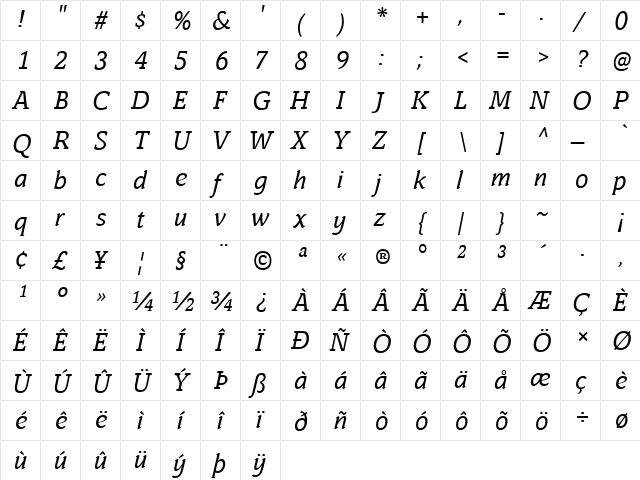
Corzinair Italic
Design Context for Corzinair Typeface
Corzinair is a composed and adaptable typeface that performs quietly and consistently across a wide range of design contexts. The slanted form adds forward momentum and visual energy.
Pro Tip: Try Corzinair for annotation and caption copy alongside an upright companion — the contrast in angle creates a dynamic but ordered typographic system.